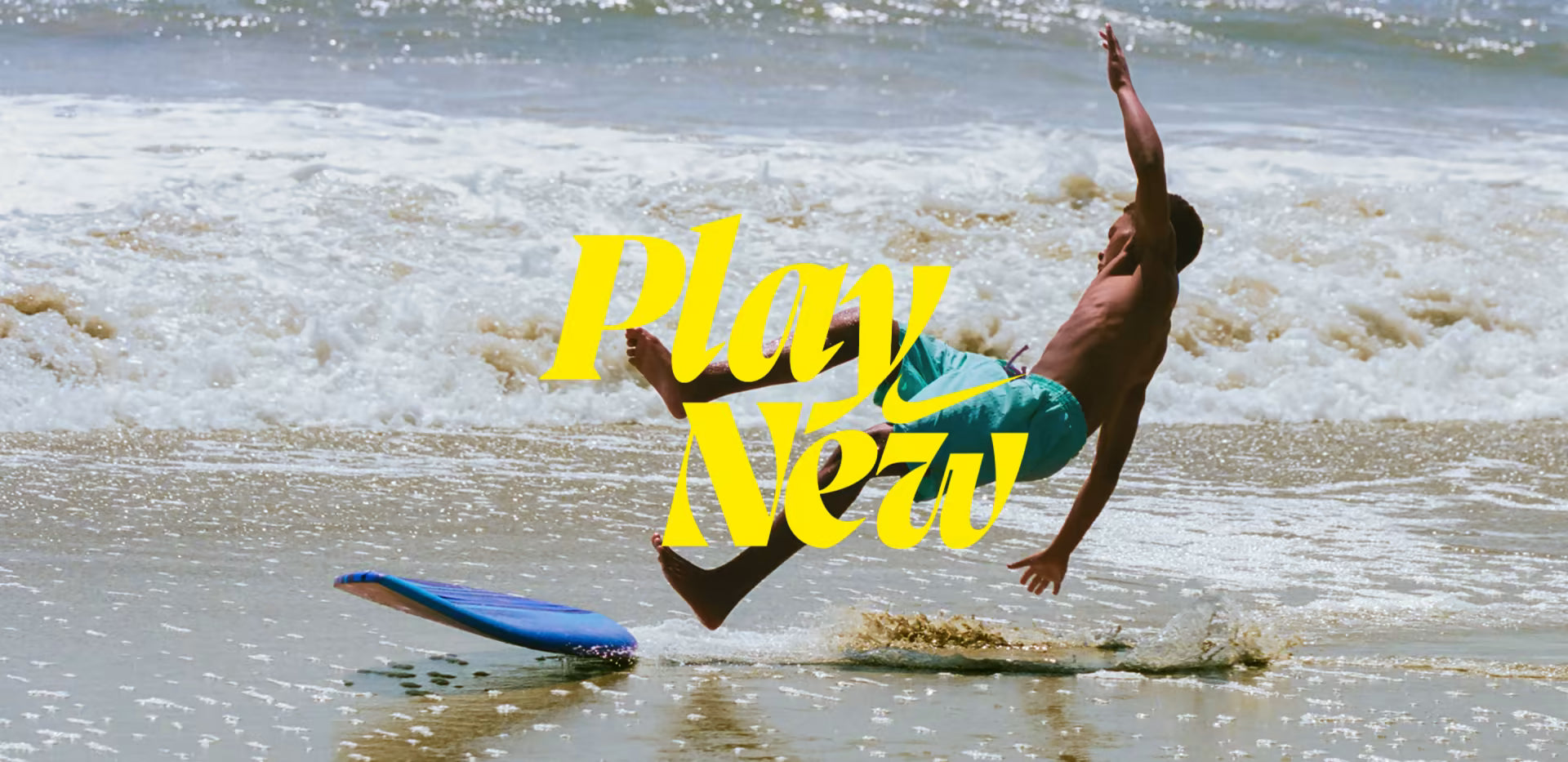
Advertising agencies operate at the intersection of strategy, creativity, and execution, and typography is one of their most powerful tools. From bold campaign headlines to refined brand systems, type helps translate ideas into visuals that capture attention and communicate instantly.
In a fast-paced and competitive environment, typography must be both expressive and adaptable. It needs to shift between brands, audiences, and tones without losing impact. Whether it is loud and disruptive or subtle and sophisticated, the right typographic choice reinforces the concept and elevates the message. Agencies work across a wide range of formats, from digital ads and social content to print campaigns, motion design, and environmental installations. A strong typographic system ensures consistency while still allowing for creative exploration and variation. It becomes a framework that supports both experimentation and clarity.
Pangram Pangram’s typefaces are designed to meet the demands of advertising agencies, offering a diverse range of styles that balance personality with performance. Whether you're building a brand from the ground up or launching a high-impact campaign, our fonts provide the flexibility, character, and precision needed to bring ideas to life.